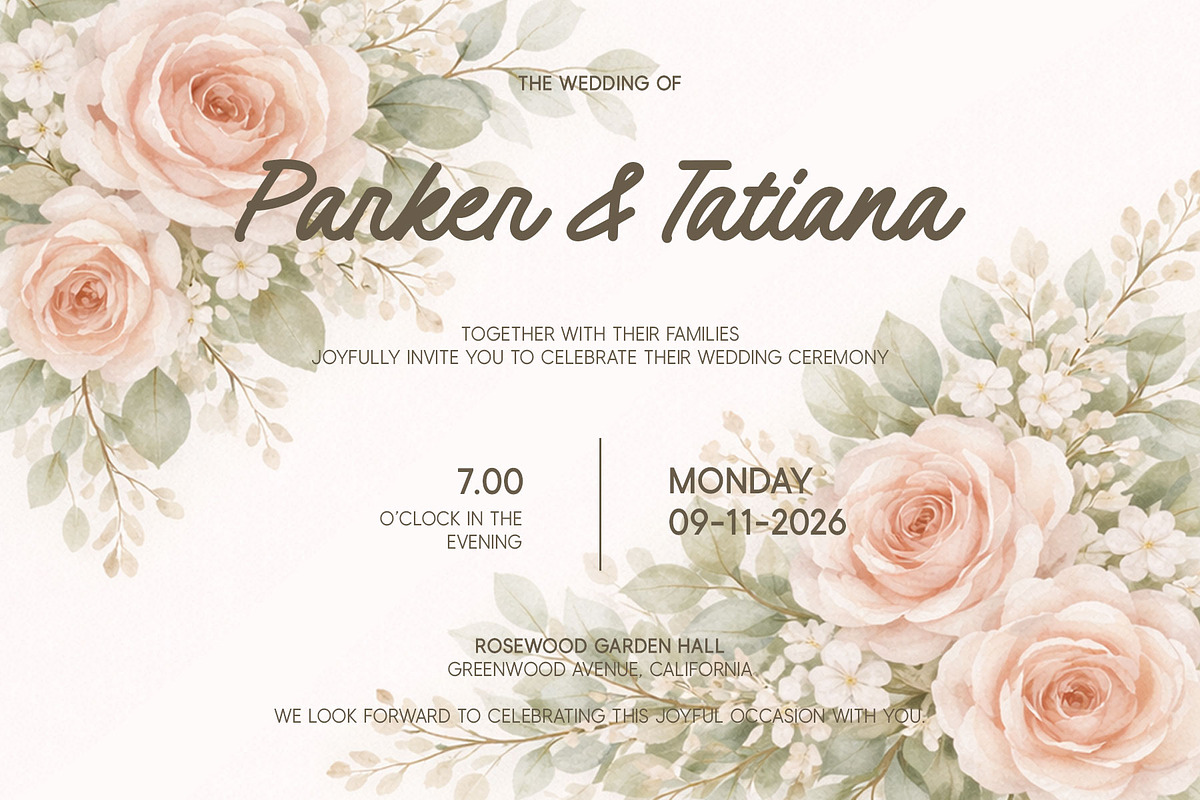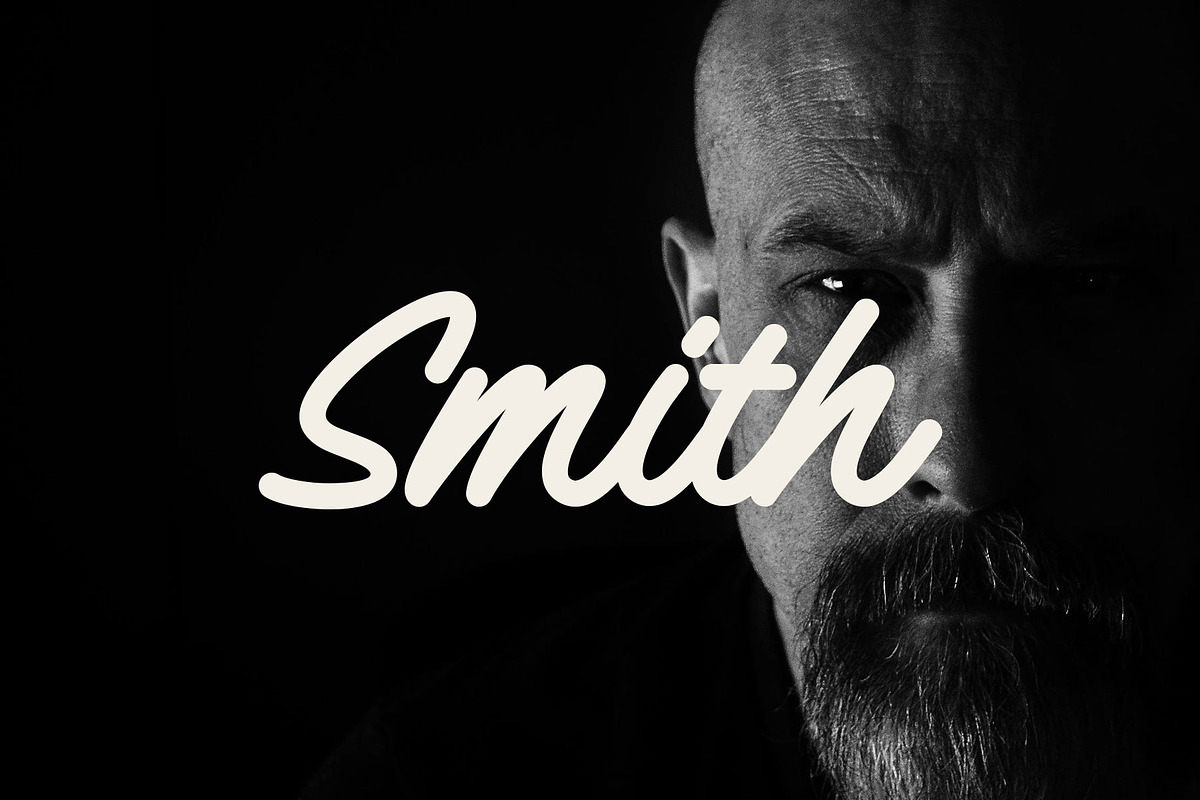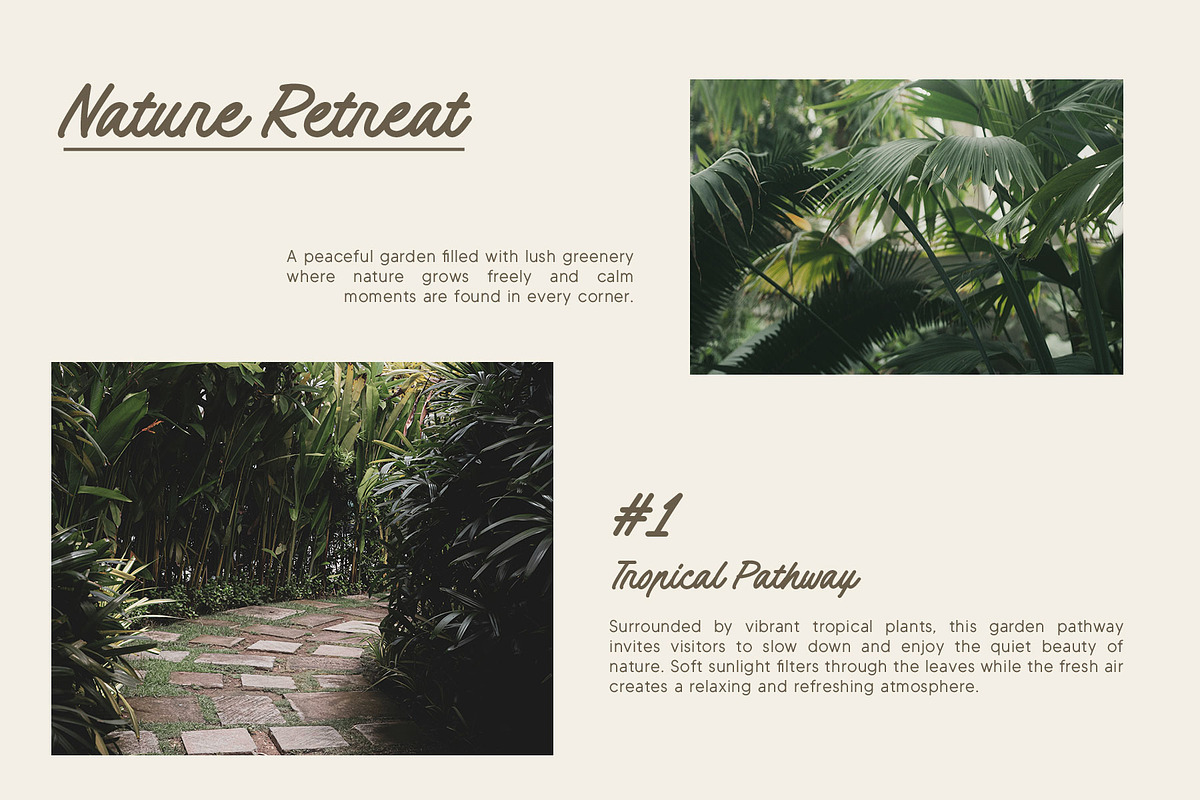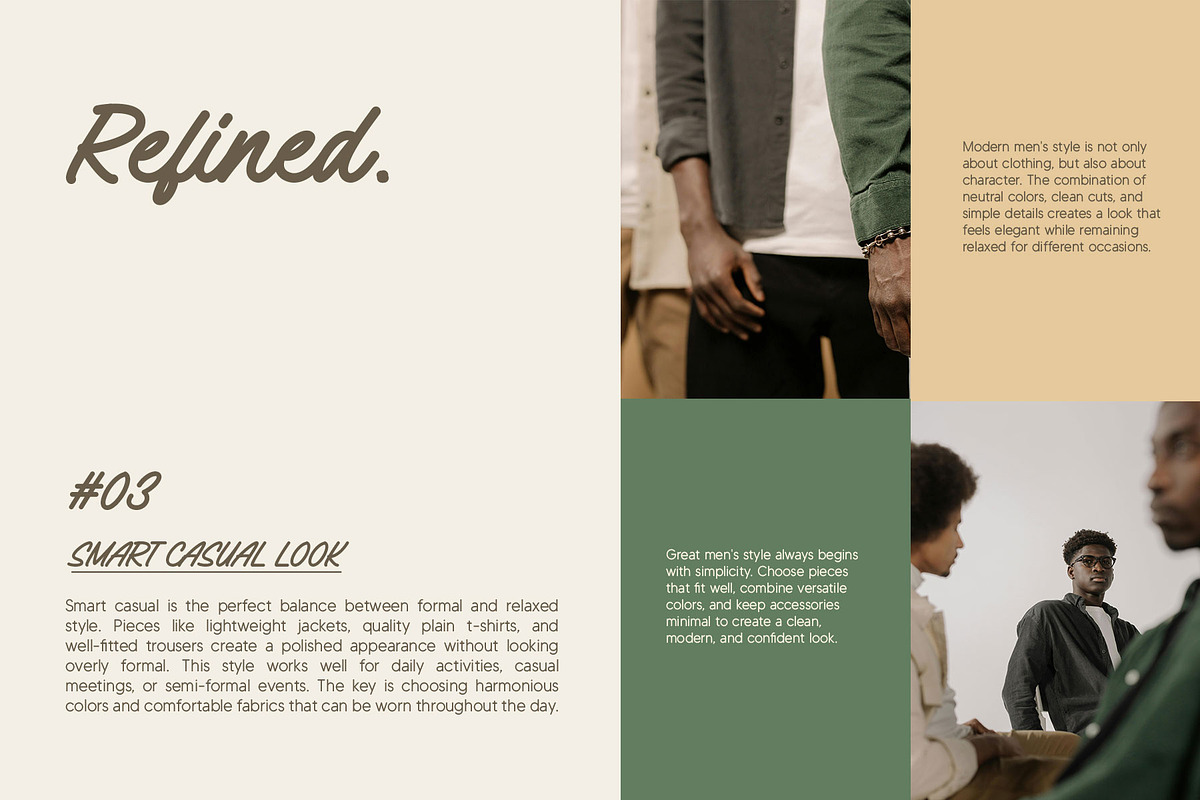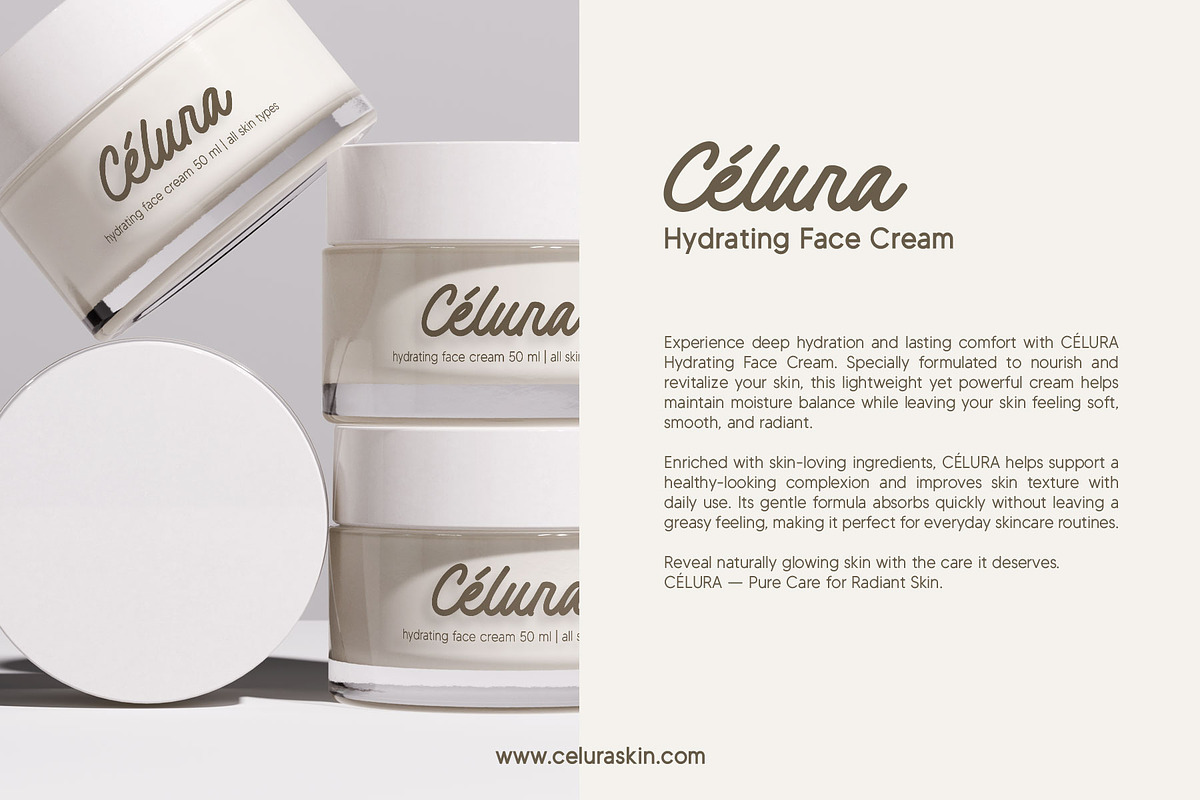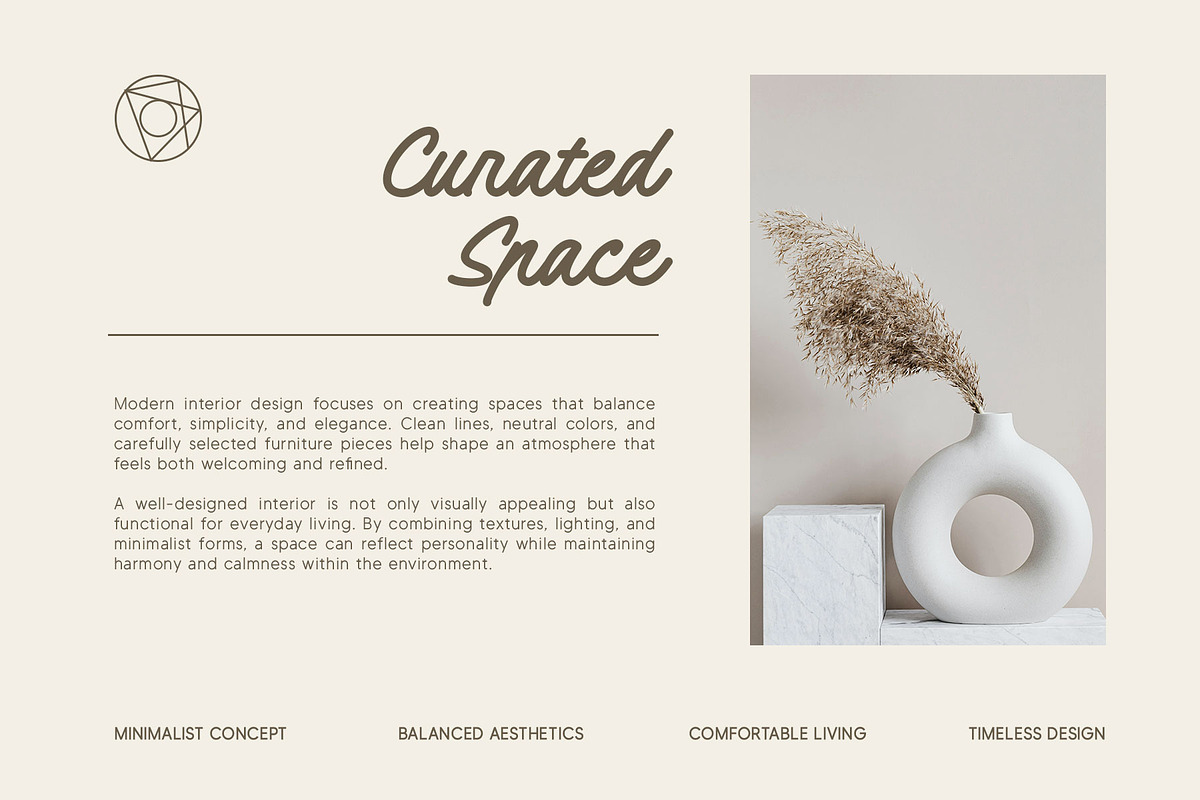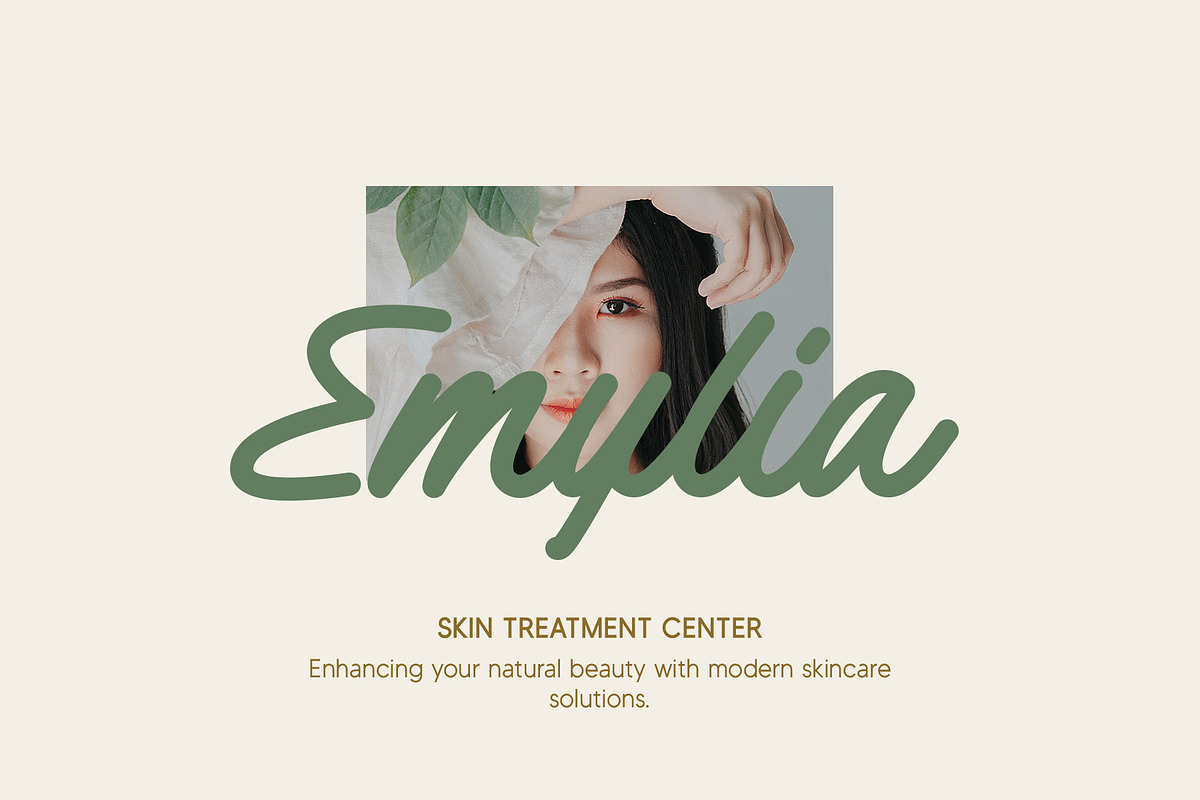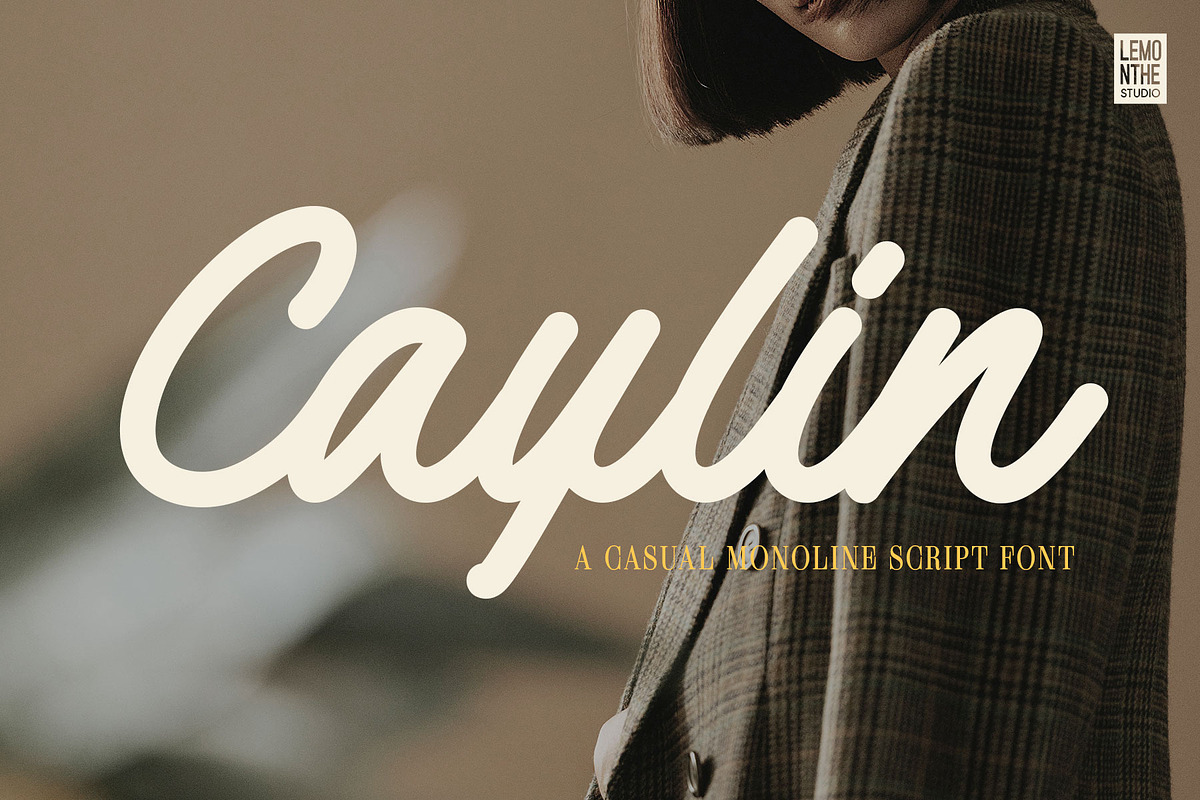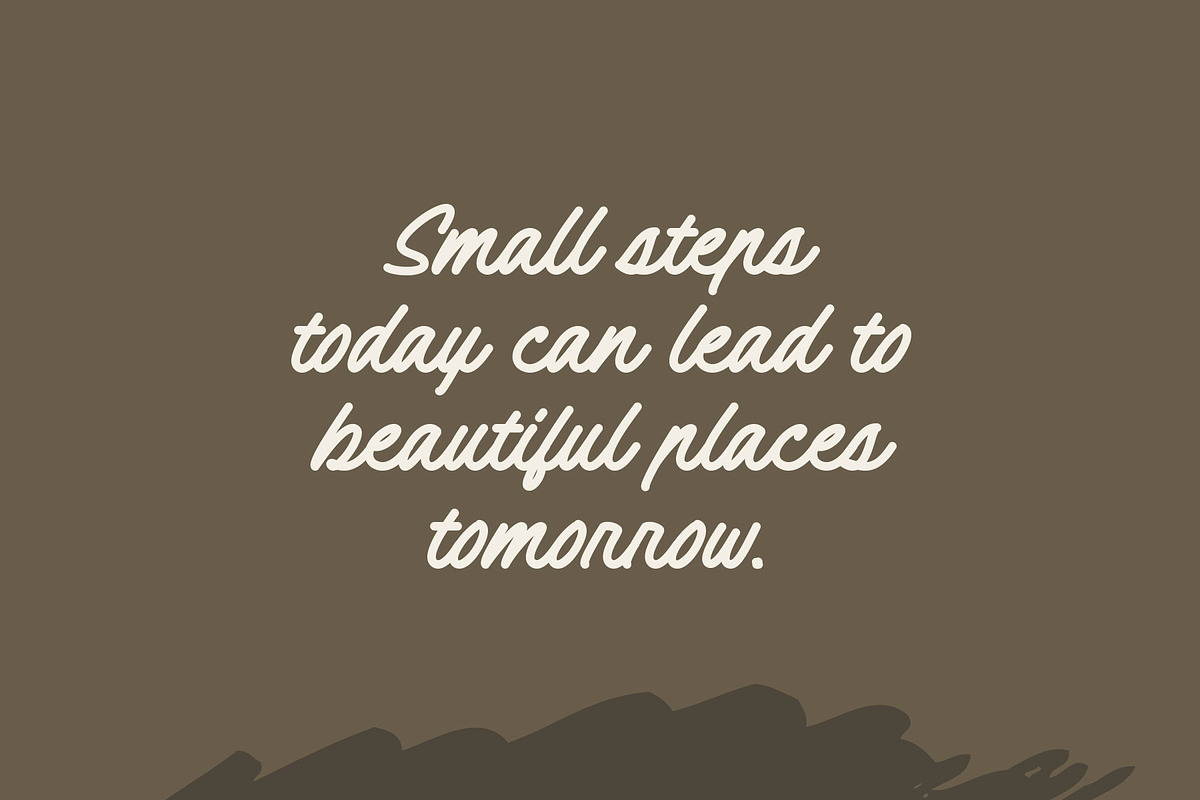
Caylin | Monoline Script
Caylin is a casual monoline script font that captures a smooth and natural handwritten feel. Its flowing strokes and balanced letterforms create a clean yet expressive look, making it easy to read while still feeling warm and stylish. The consistent line weight gives it a modern touch, perfect for designs that aim to feel approachable and effortlessly elegant.
This font works beautifully across a variety of design needs, from branding and logos to social media, invitations, and lifestyle visuals. Caylin brings a relaxed and refined character, making it especially suitable for projects that want to convey authenticity, softness, and a contemporary handwritten aesthetic.